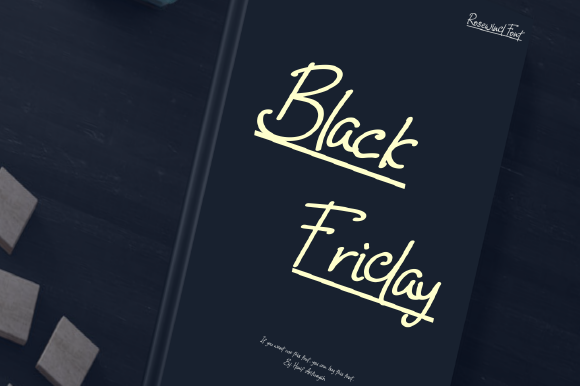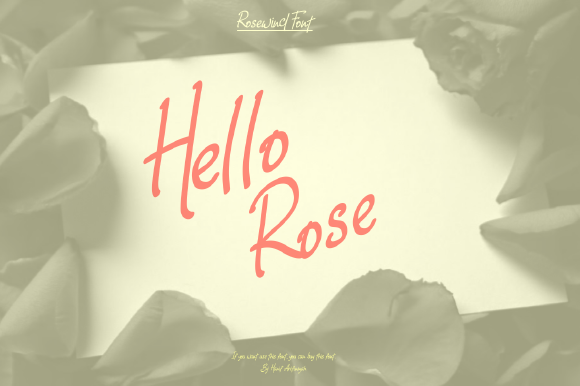
Introduction to Rosewind Font
Rosewind is an elegant, full-featured script font with tons of alternate characters and OpenType features.
The name Rosewind is inspired by the rose behind the house that is often blown off It is a hand-lettered style and is particularly well-suited to invitations, branding, and editorial design.
Key Features of Rosewind Font